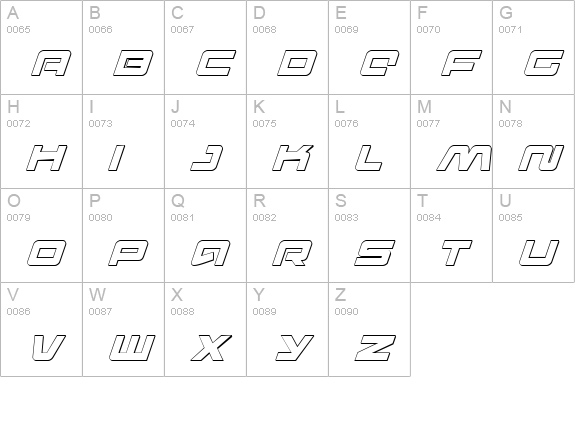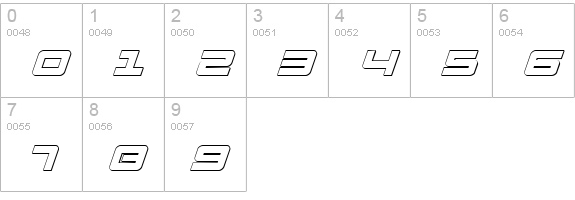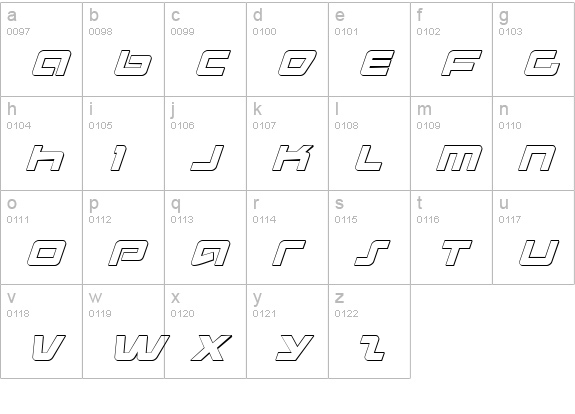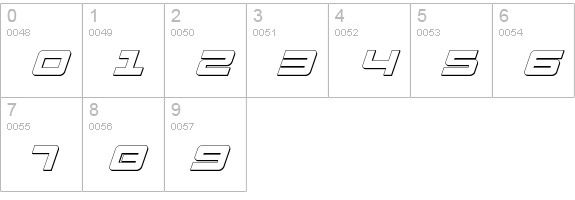
Pulse Rifle 3D Italic is a distinctive, italic variant in the Pulse typeface family \xE2\x80\x94 well suited to design and typography projects.
Introducing Pulse Rifle 3D Italic font, a sleek and futuristic typeface that exudes power and sophistication. With its sharp angles and dynamic design, this font is perfect for projects that demand a modern and edgy look. The 3D effect adds depth and dimension, making your text stand out on any platform. And the best part? Pulse Rifle 3D Italic font is available for free download at FontsMarket.com. Now you can add a touch of boldness to your designs without breaking the bank. Don't miss out on this opportunity to elevate your projects with a cutting-edge font that will leave a lasting impression. Download Pulse Rifle 3D Italic font today and let your creativity shine!